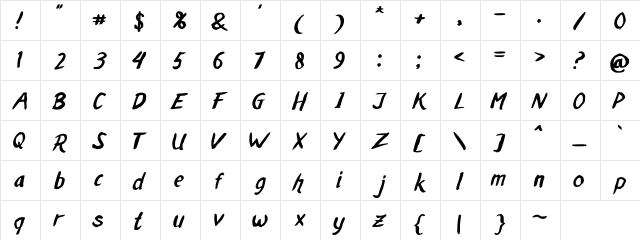
MALAKA BRUSH Regular
Design Context for MALAKA BRUSH Typeface
MALAKA BRUSH brings a calligraphic fluidity to the page — its connecting strokes and expressive curves give it an unmistakably human quality.
Font Pairing: Combine MALAKA BRUSH with a simple geometric sans for maximum contrast — the tension between flowing curves and clean structure is a classic typographic pairing.
Pro Tip: Pair MALAKA BRUSH with a clean sans-serif for supporting text. The contrast between fluid script and geometric structure creates an elegant typographic hierarchy.